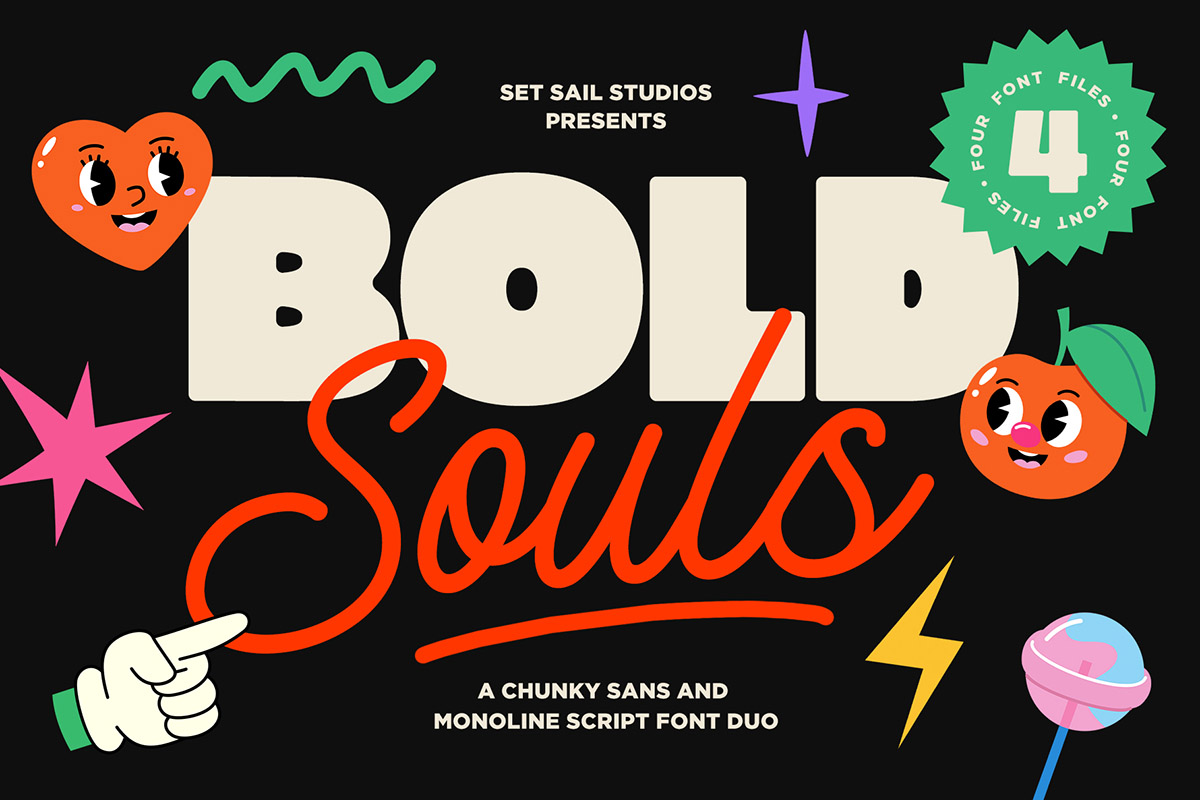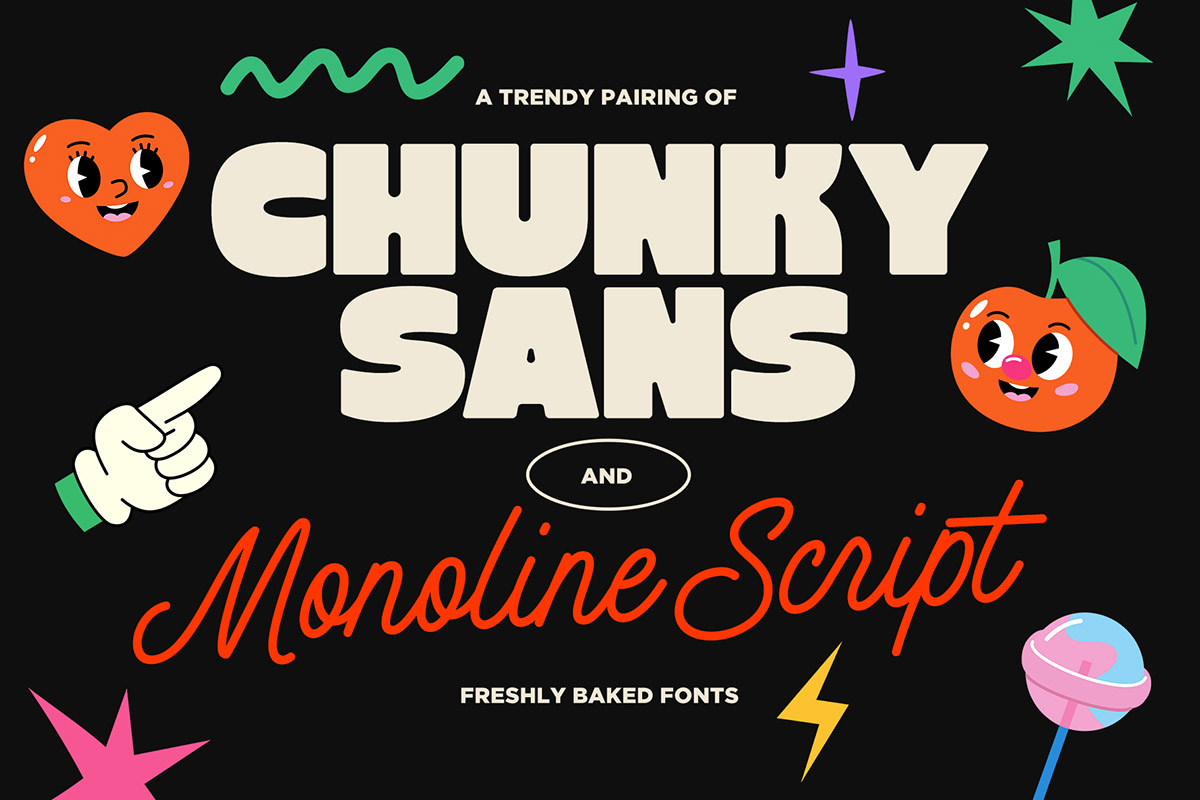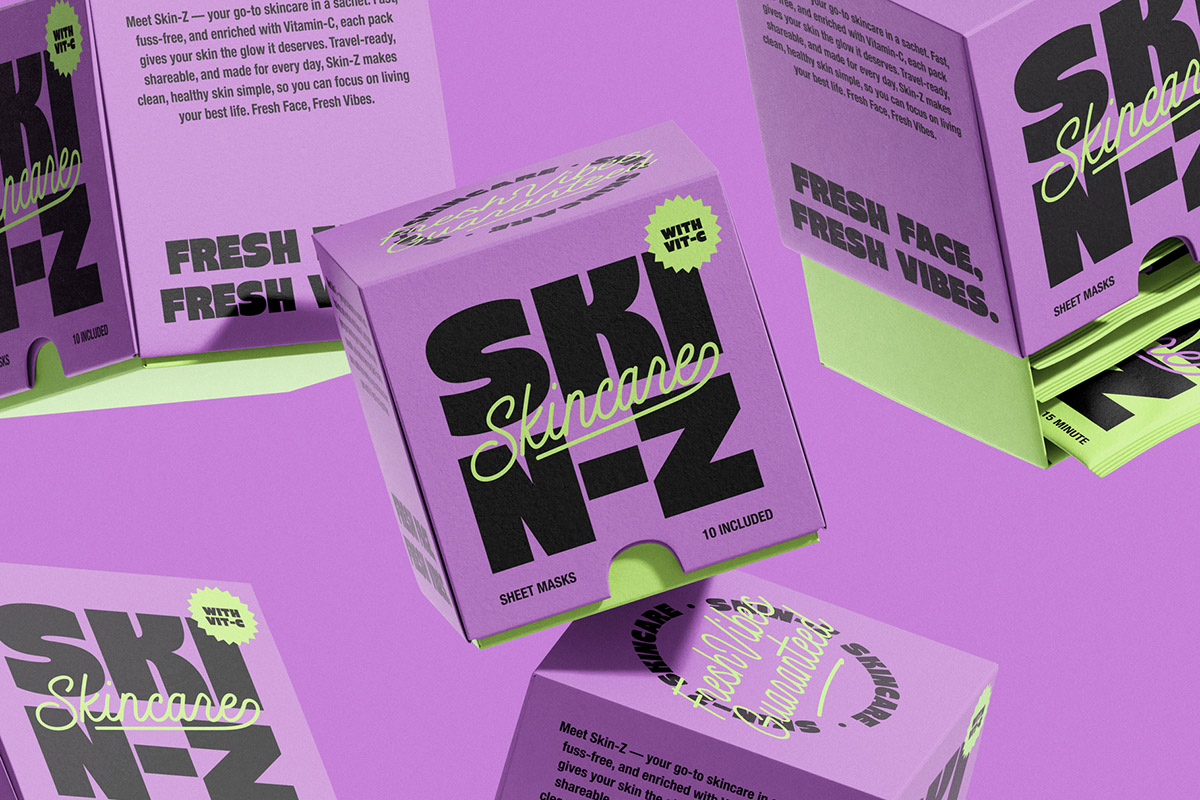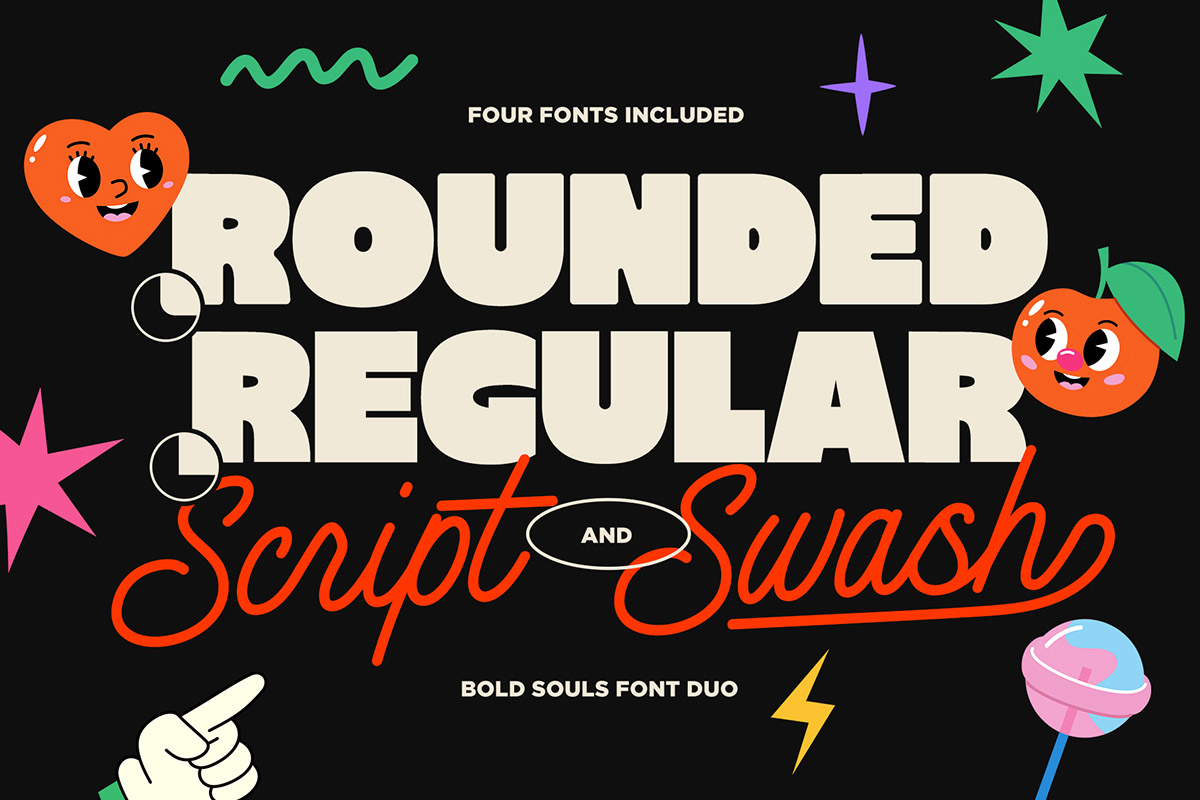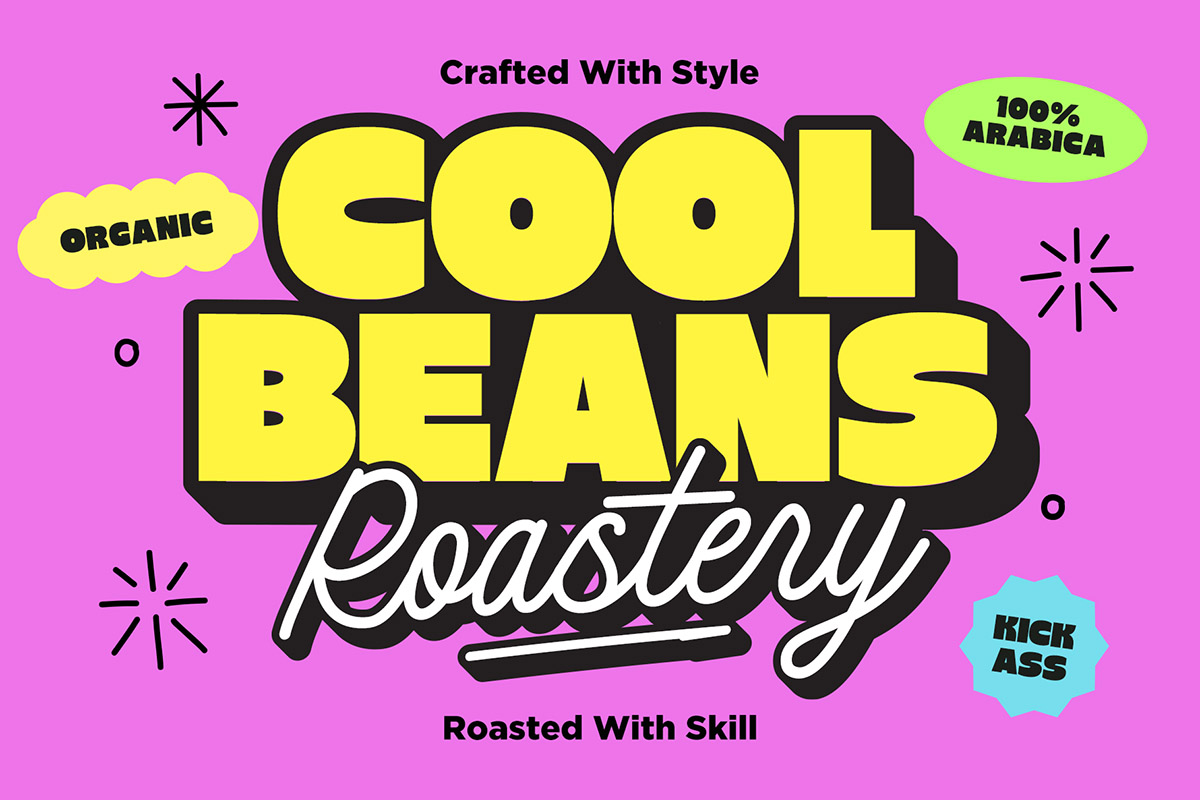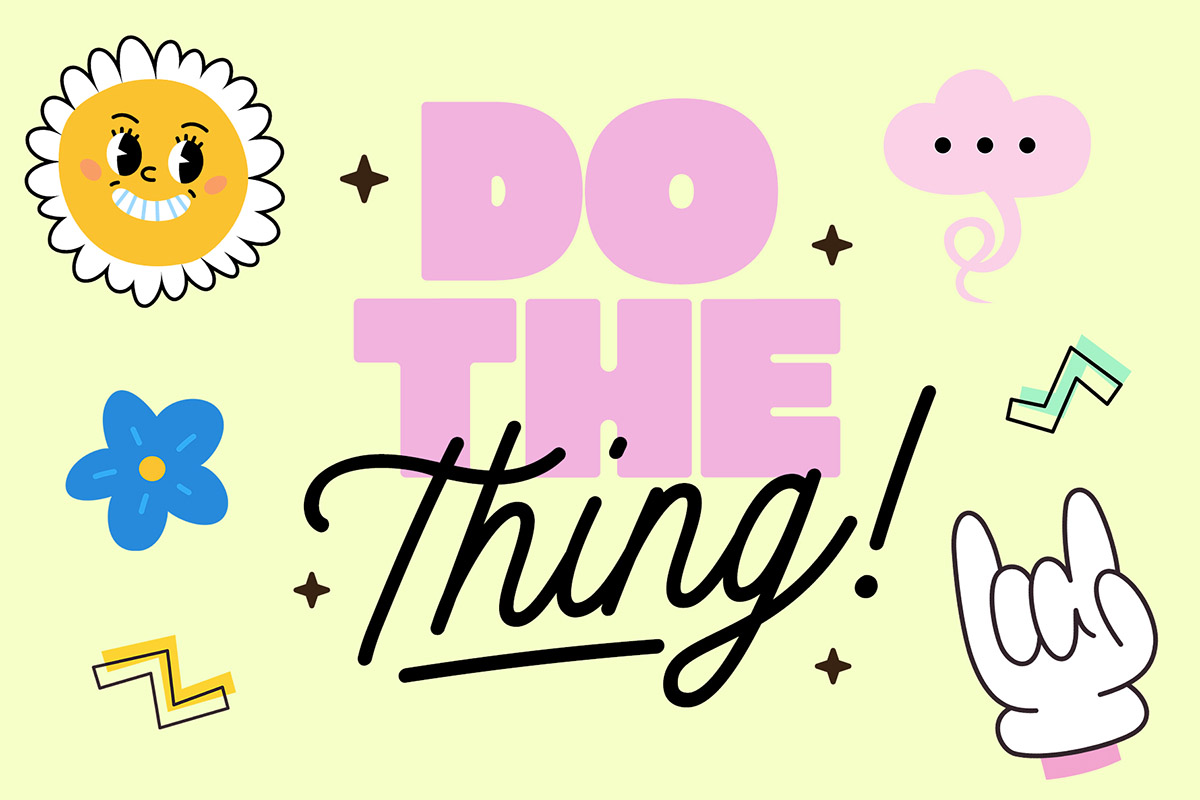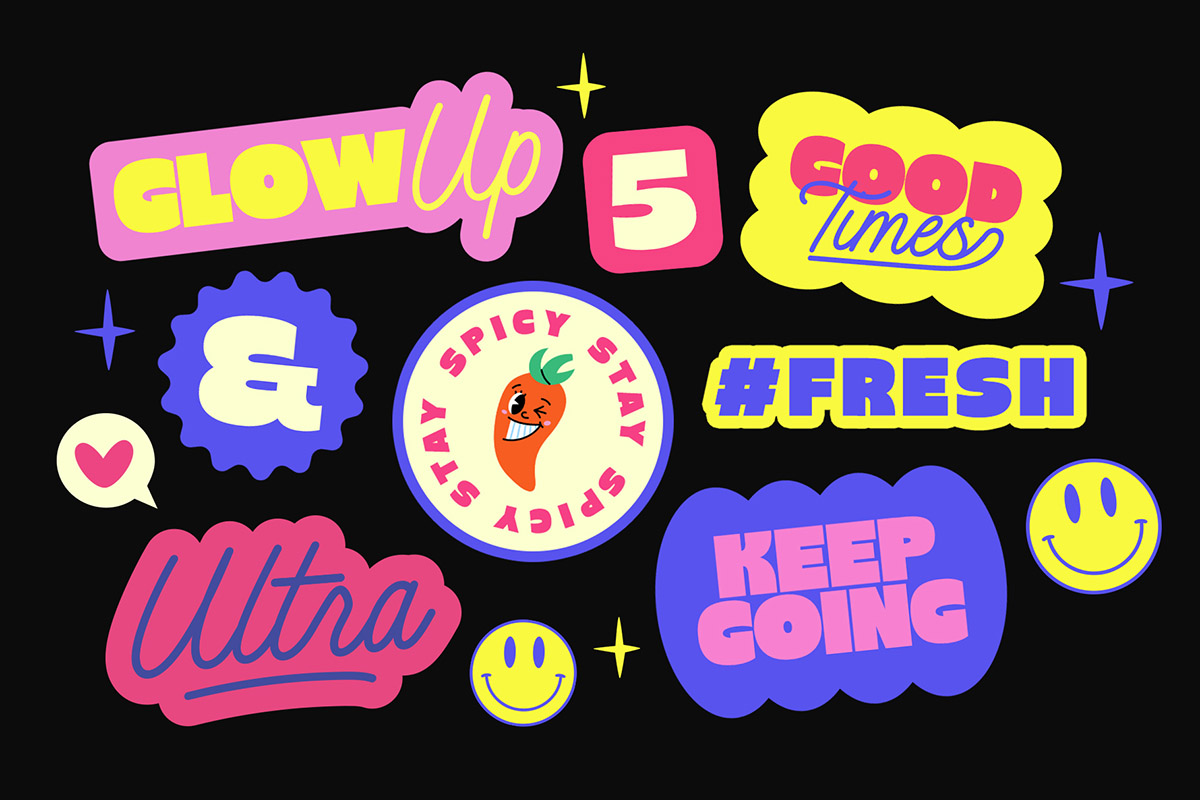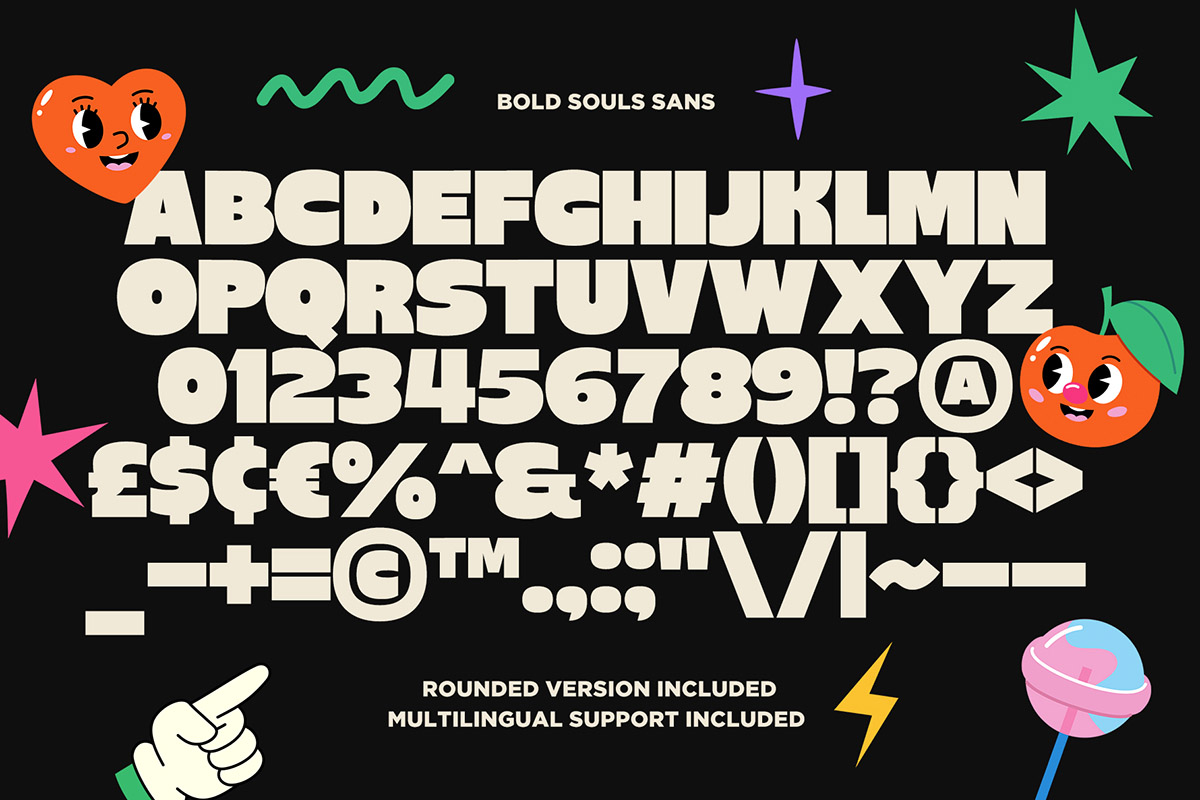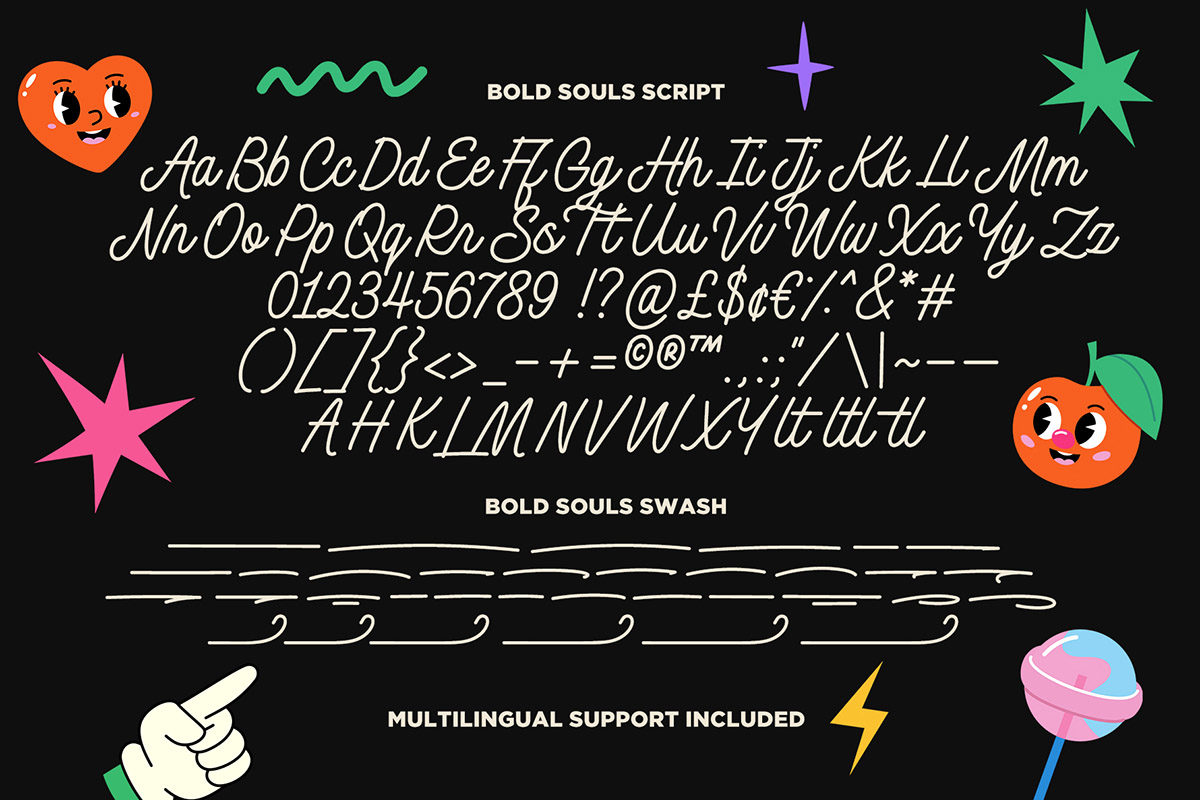
Go Bold with the Bold Souls Font Duo! This trendy pairing of fonts has been carefully designed to perfectly compliment one another, featuring a Super Chunky Sans Font (with the option of sharp or rounded edges), and a Smooth Monoline Script Font (with 35 bonus underline swashes). The strong sans does the heavy lifting while the flowing script gives it the extra flair, both bringing their own unique style to the party.
1. Bold Souls Sans • An extra chunky sans font, containing uppercase only characters, plus numerals, punctuation, and language support.
2. Bold Souls Sans Round • An alternative option of the Regular Sans font, with all edges rounded for a softer, friendlier vibe.
3. Bold Souls Script • A super smooth, monoline script font with cursive, connected characters. Contains uppercase, lowercase, numerals, punctuation, plus 10 alternate uppercase characters (accessible by turning on ‘Stylistic Alternates’ or via the Glyphs panel).
4. Bold Souls Swash • Add a little extra customisation to your ‘Bold Souls Script’ text! Simply install this as it’s own separate font, and type any character (A-Z, g-o) to generate 1 of 35 underline swashes. Swashes A-F are designed to be typed at the end of your ‘Bold Souls Script’ text to join onto your final letter. Swashes G-Z and g-o are designed to be typed on a new layer, and positioned underneath your ‘Bold Souls Script’ text.